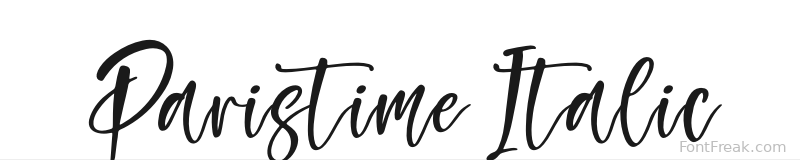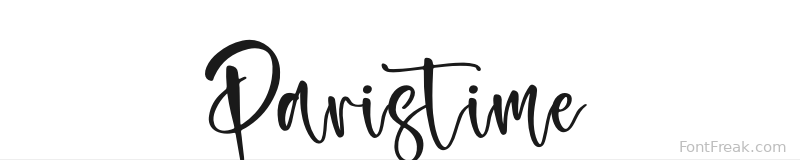
Paristime
About Paristime
Paristime is a captivating display font designed by Perspectype Studio in 2021. This script-style typeface exudes elegance and charm, making it an ideal choice for projects that require a touch of sophistication. With its flowing curves and dynamic strokes, Paristime showcases a moderate stroke weight that balances readability with artistic flair. The font boasts a delightful contrast between thick and thin lines, enhancing its visual appeal and ensuring that it stands out in any design context. The generous letter spacing contributes to its airy feel, making it perfect for a variety of applications.
This font is particularly well-suited for wedding invitations, where its romantic aesthetic can beautifully complement the occasion. It also shines in restaurant menus, adding an inviting touch that can entice diners. Graphic designers may find Paristime ideal for use in movie posters, where its unique character can capture the essence of the film. Additionally, content creators looking to enhance their branding on social media will appreciate how Paristime can elevate their visual identity.
The target audience for Paristime includes graphic designers, small business owners, and content creators who seek a font that marries style with functionality. Its versatility allows it to fit seamlessly into various design projects, from print to digital media.
What makes the Paristime font truly stand out is its ability to convey emotion through typography. Its graceful lines and artistic flair not only capture attention but also create a memorable impression. For those seeking a unique touch in their designs, the Paristime font free download offers an opportunity to elevate their work with elegance and creativity.